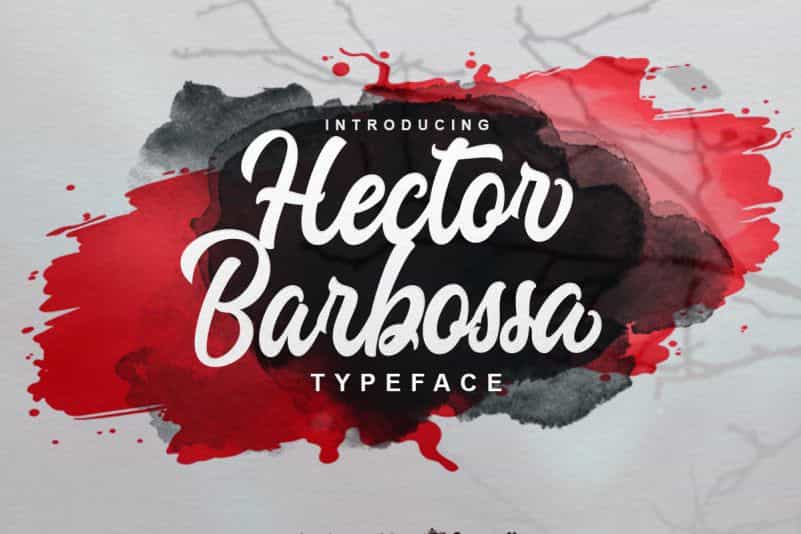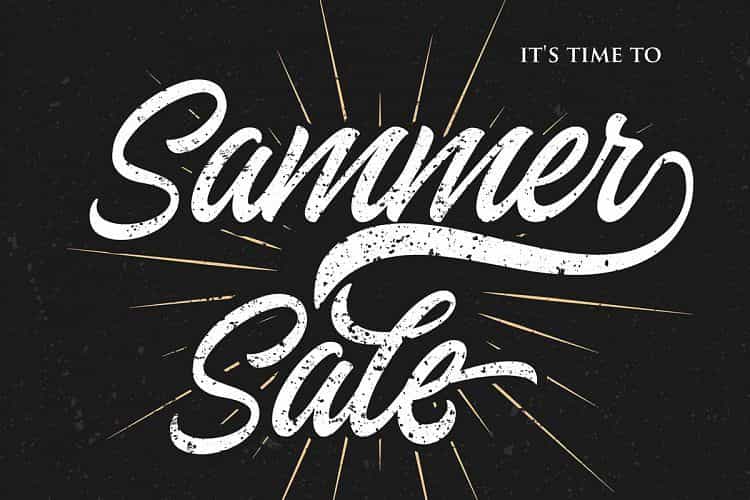
Discover Hector Barbossa Script Font, part of the Brush Calligraphy collection—a versatile and unique font perfect for adding a personal touch to your projects. Download it for free and enjoy crafting designs with style, from invitations to social media posts. This font is available exclusively for personal use, giving you the freedom to create without limits. Unlock your creativity with Hector Barbossa Script Font today!
I am glad to present you the Hector Barbossa Script Font. It is a design which was developed and shared by BhadalStudio. A casual script typeface was used to design a Hand Lettering style for you and your client’s brand, or even for the logotype, product designs, label, watermark, social media posts apparel invitation signboard sport club motor/car etc.